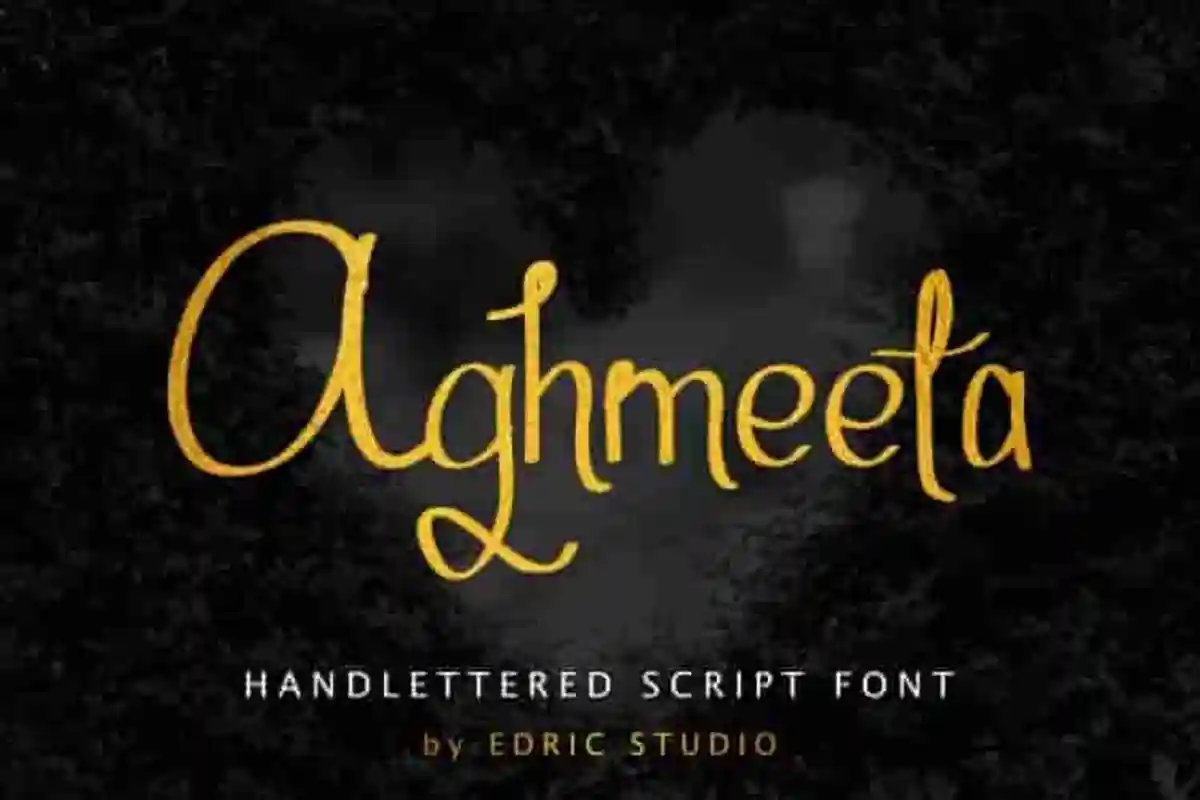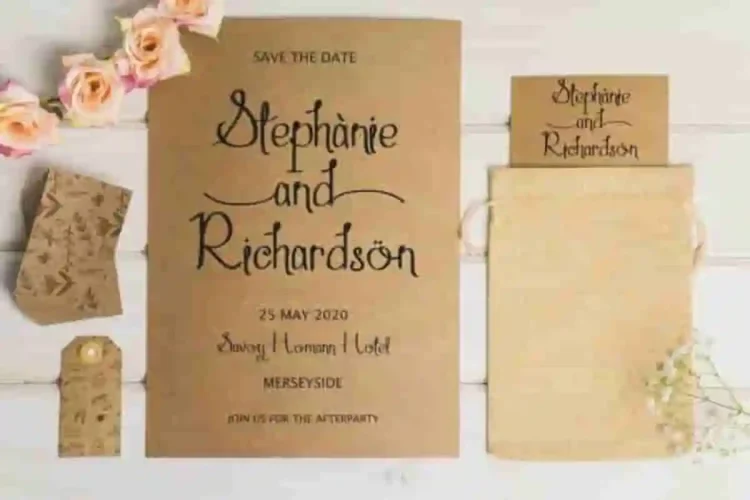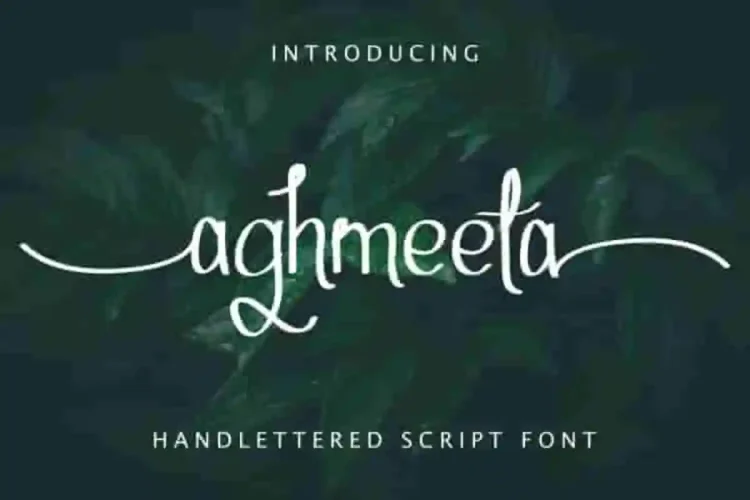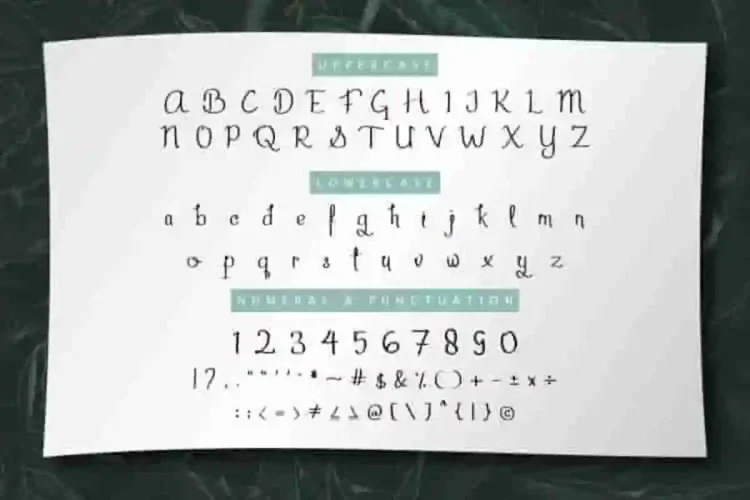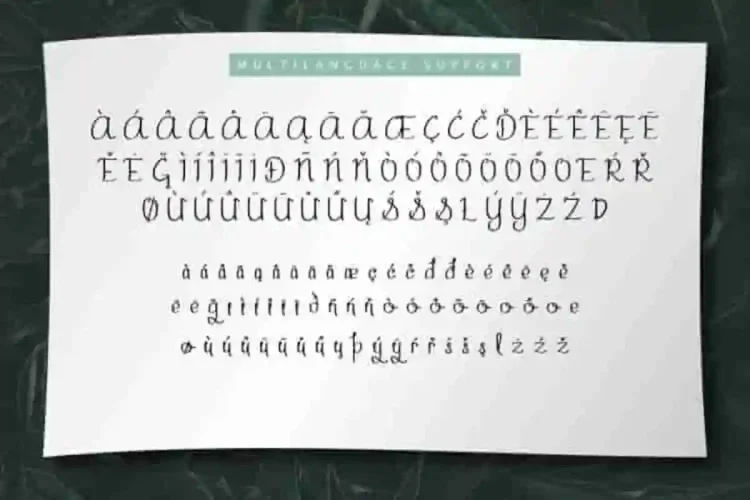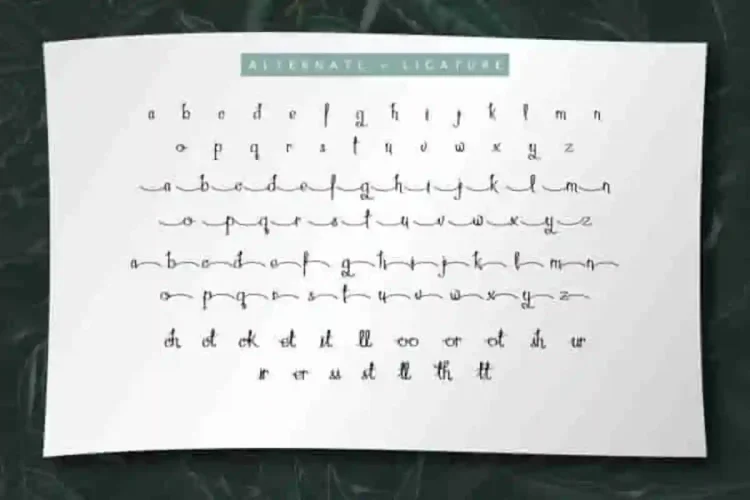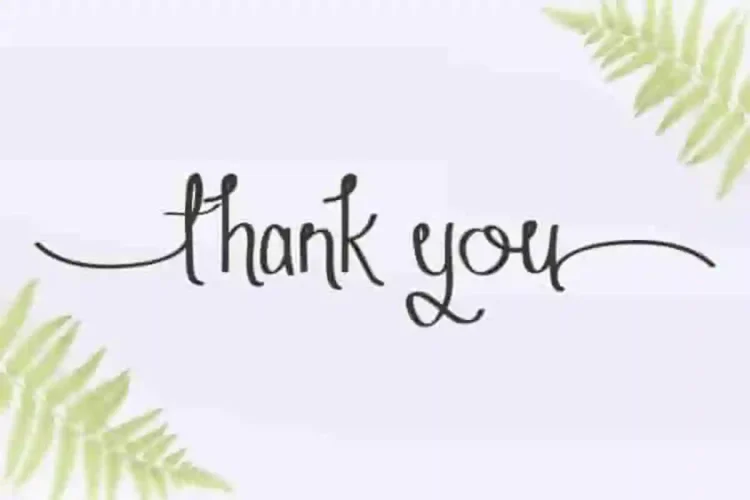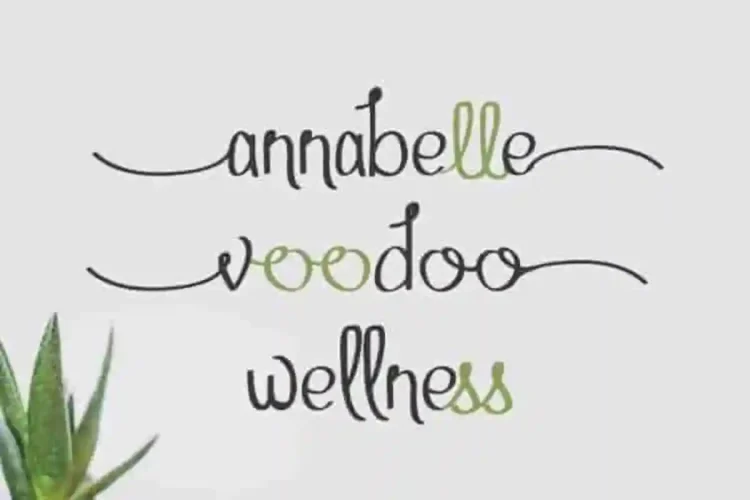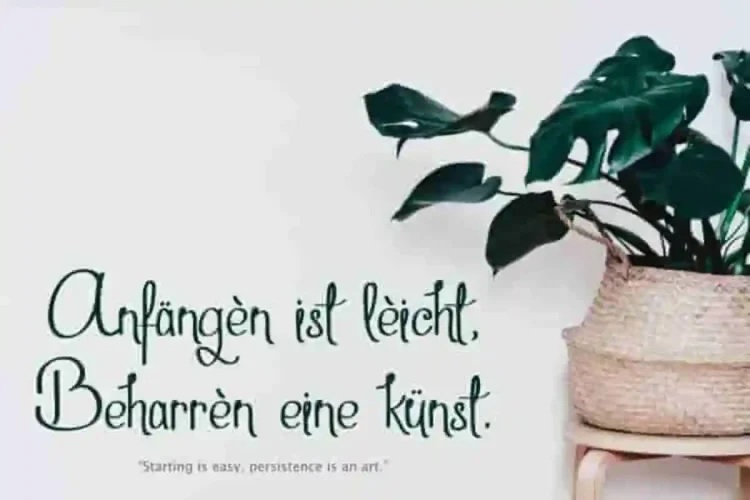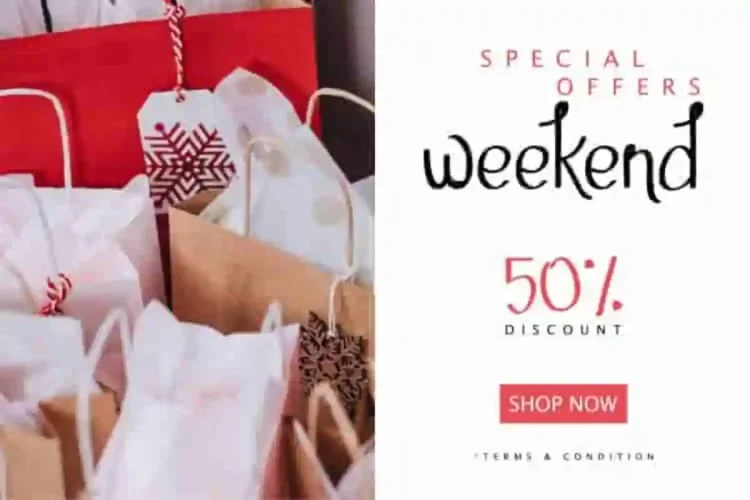
Aghmeeta Handwritting Font
Please welcome! The font by Edric Studio in 2020.
Aghmeeta is a handwritten font, made by our lovely letter artist in Bandung, Indonesia.
Aghmeeta Font signature has you can use it as for any of your designs concept.
This is a new modern decorative font with handwriting style.
Perfect for branding, logo, stationery, business card, signage, flyer, brochure etc here are many.
Plus it support multi-language